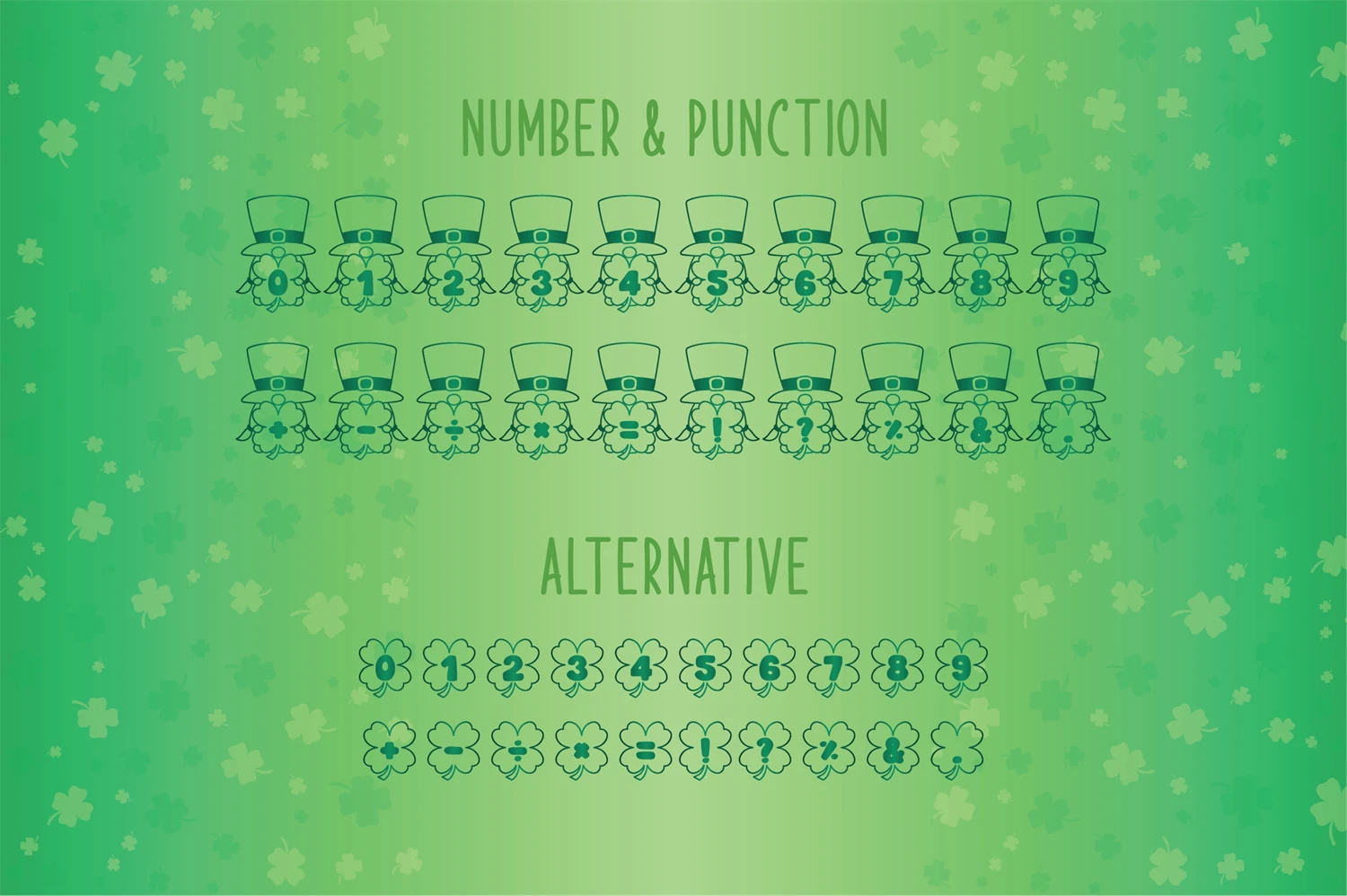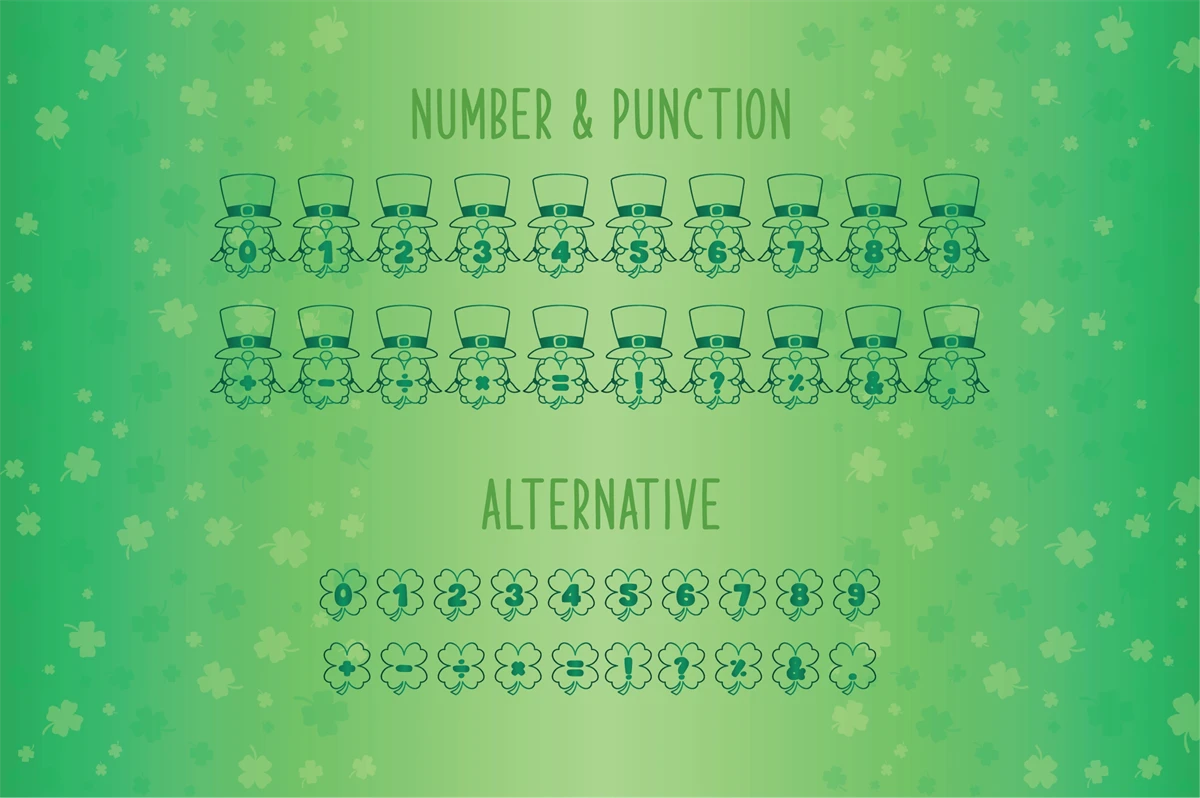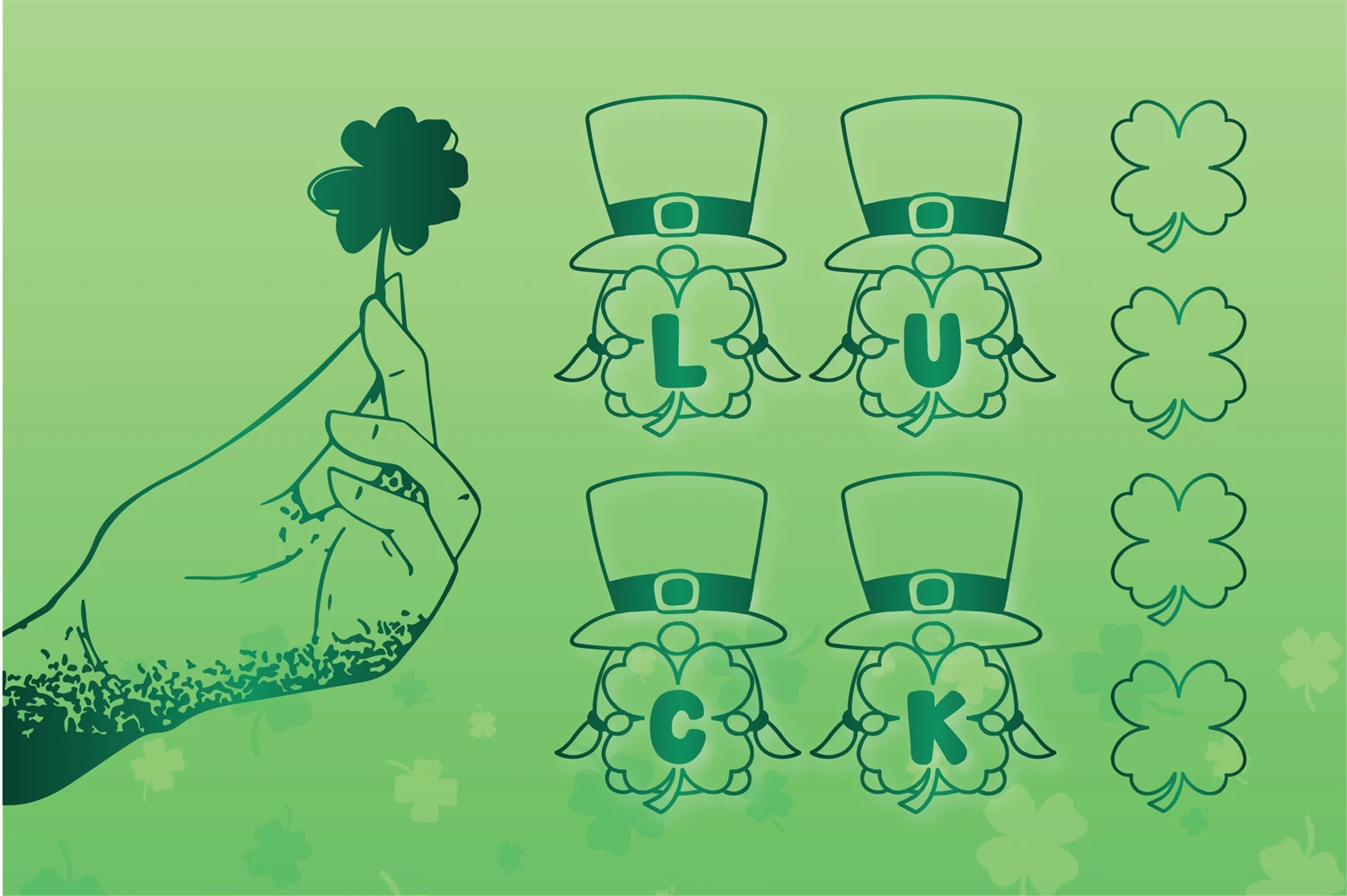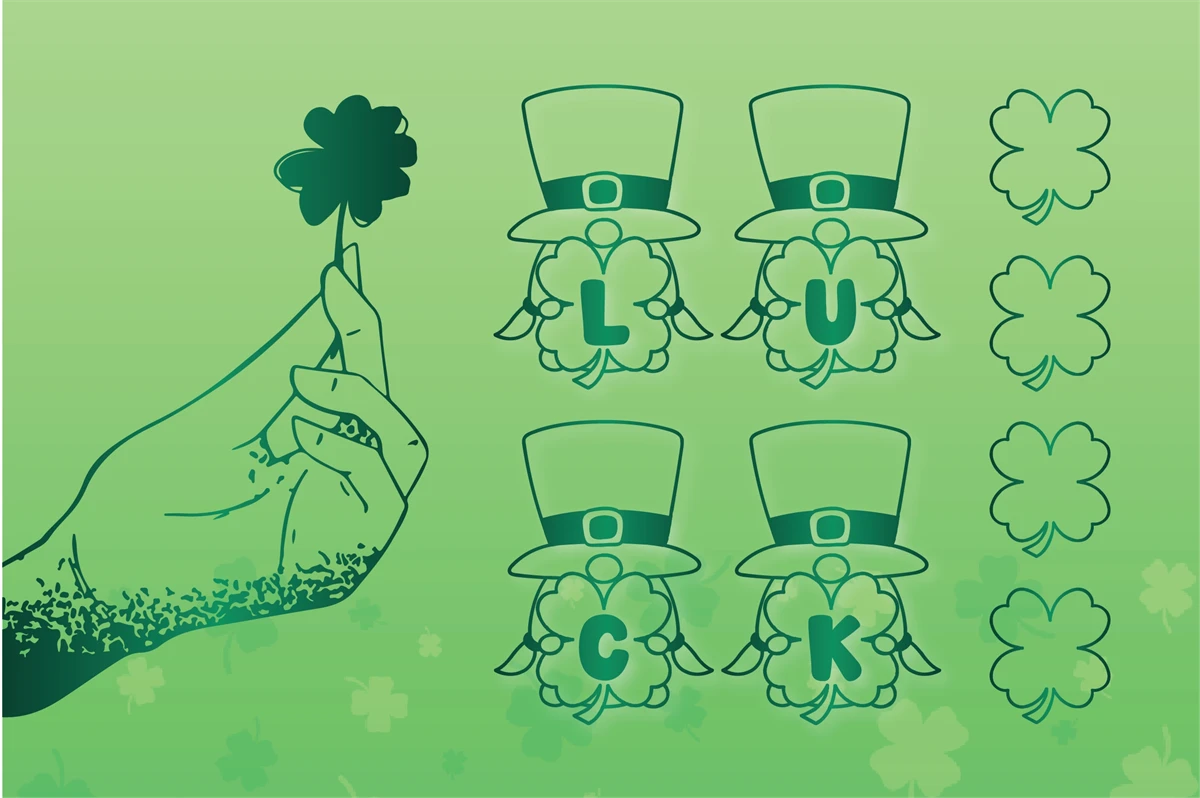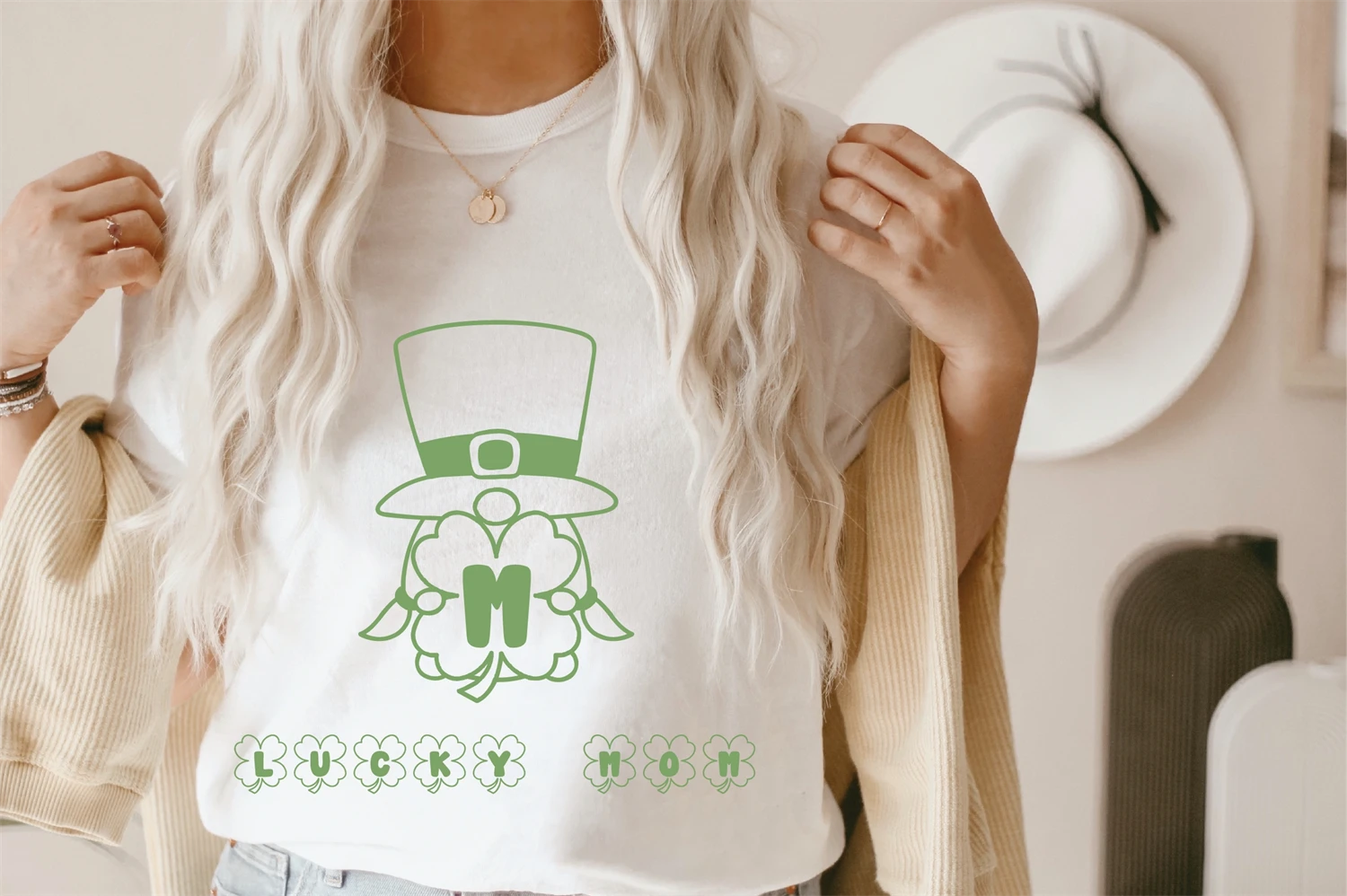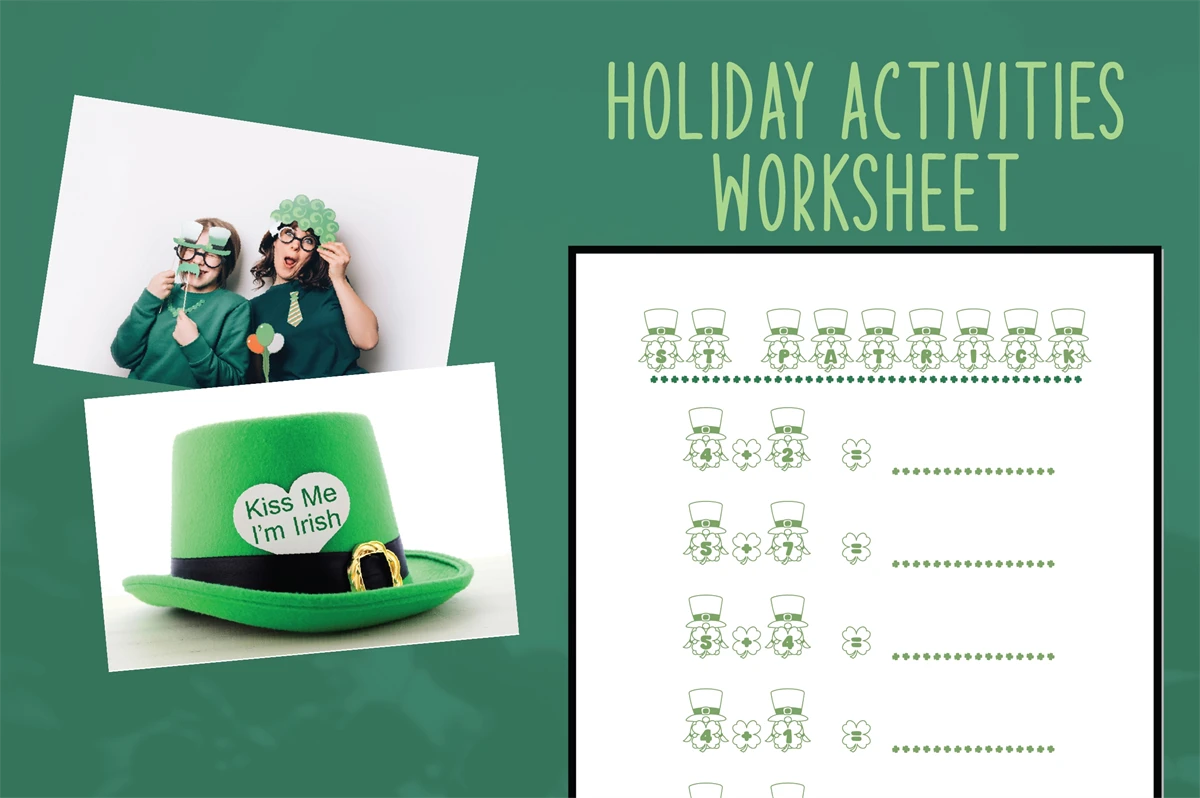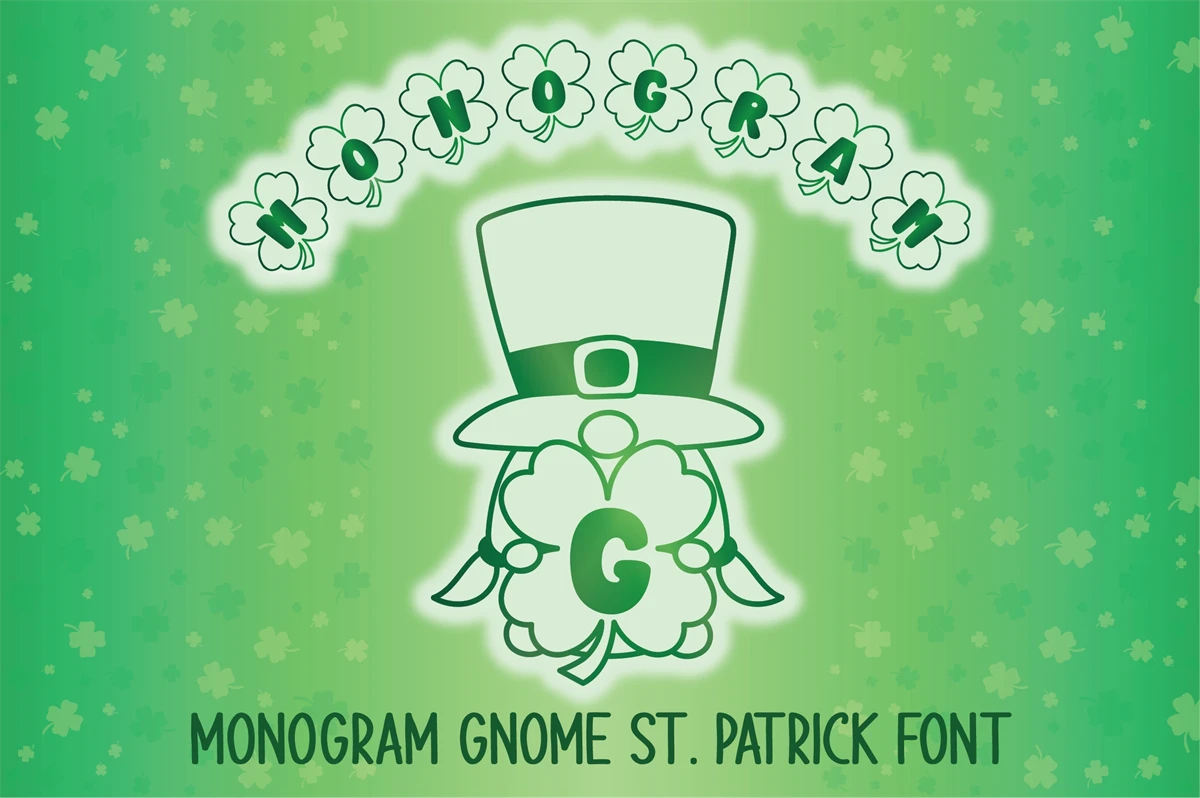
Monogram Gnome is a fun and festive font. Whatever the topic, this font will be a wonderful asset to your font library, as it has the potential to enhance any creation.